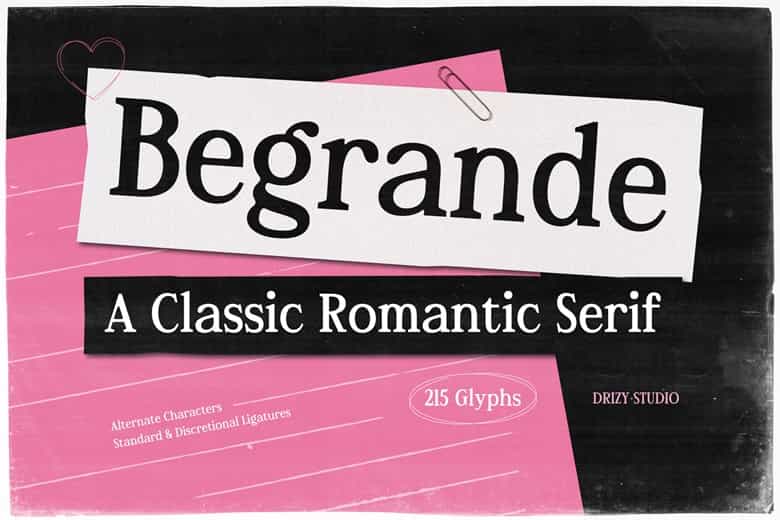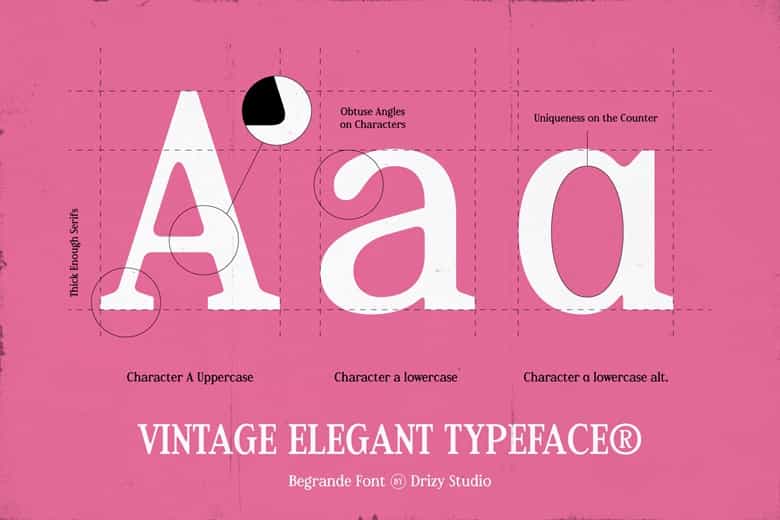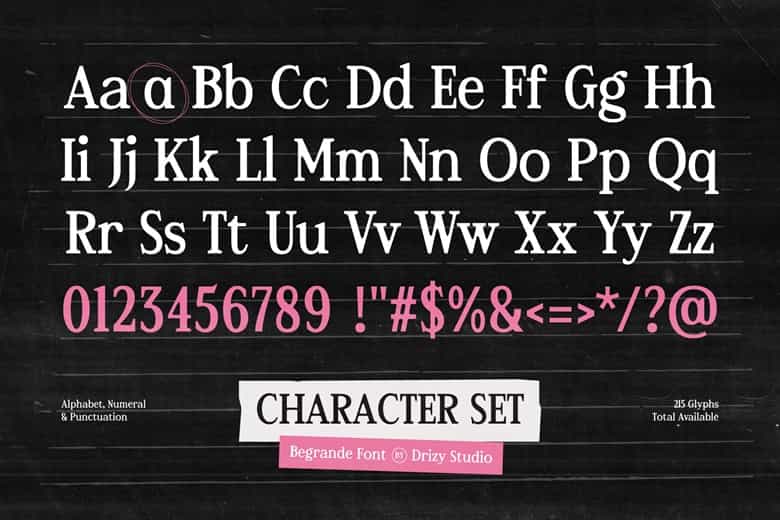
Begrande is a beautiful serif font that has been conceived in a way that it will suit any romantic or passionate projects you may be working on. Begrande has smooth lines, fine detailing especially on the serifs, and an old school feel that makes it ideal for loves stories and dramatic themes.